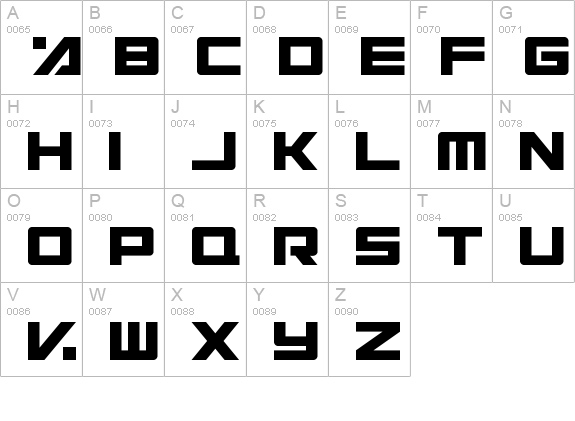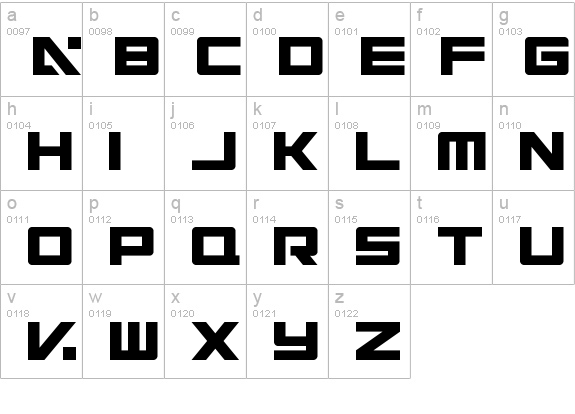
Electric Toaster font is a modern and playful typeface that exudes a sense of energy and dynamism. Its bold and electrifying design is perfect for making a statement in your designs. With its sharp edges and geometric shapes, Electric Toaster font adds a touch of contemporary flair to any project. This font is freely available to download at FontsMarket.com, making it easily accessible for designers looking to add a unique and eye-catching element to their work. Whether you're creating posters, logos, or social media graphics, Electric Toaster font is sure to electrify your designs and grab the attention of your audience. Let your creativity shine with this exciting and free-to-download font!